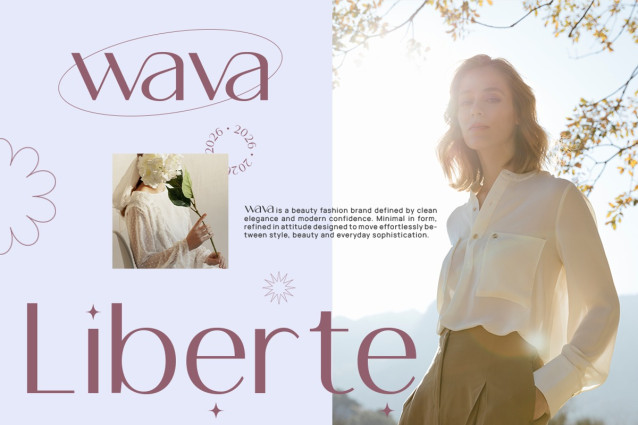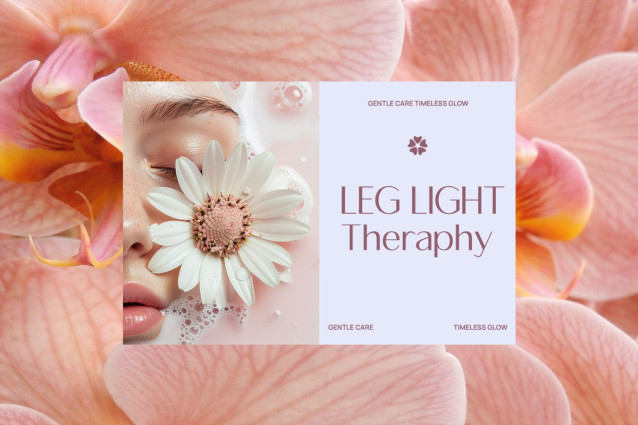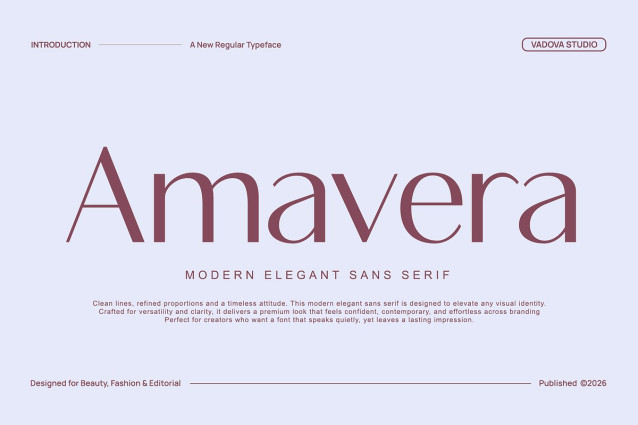
Amavera Font is a modern elegant sans serif typeface designed with clean lines, refined proportions, and a timeless aesthetic. Crafted to balance minimalism and sophistication, it delivers a confident yet understated presence across a wide range of design applications. Amavera is ideal for branding, editorial layouts, fashion campaigns, beauty packaging, and contemporary visual identities. Its modern structure ensures clarity and versatility while maintaining a premium, graceful tone.
Amavera is highly relevant for designers working in fashion, beauty, lifestyle, and editorial industries. Its refined yet modern appearance makes it perfect for brand identity systems, magazine layouts, website headers, social media campaigns, and premium packaging. The font performs beautifully in both large headlines and clean supporting text, making it versatile for both print and digital design projects.